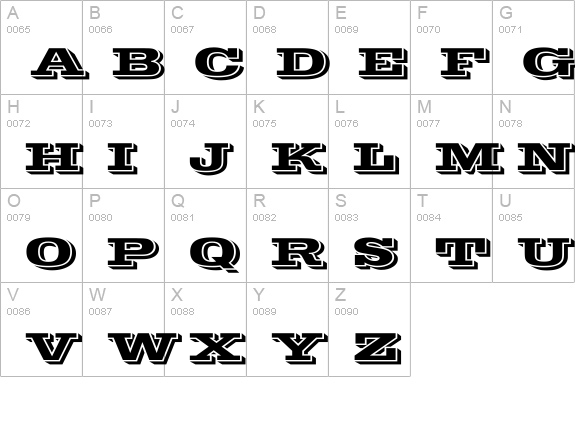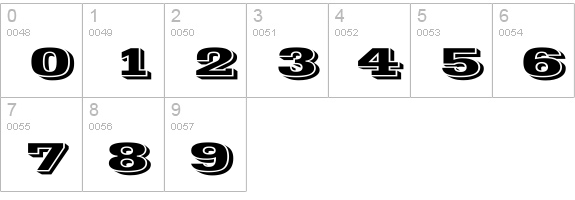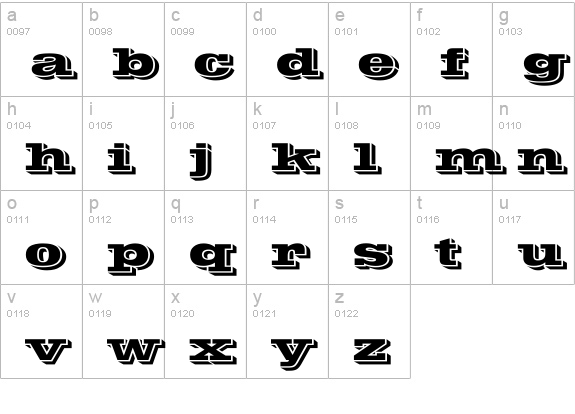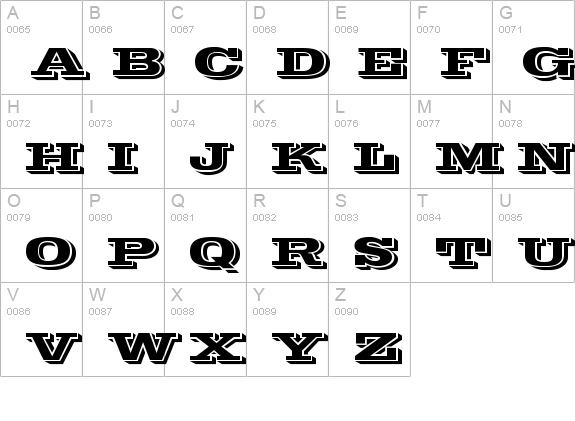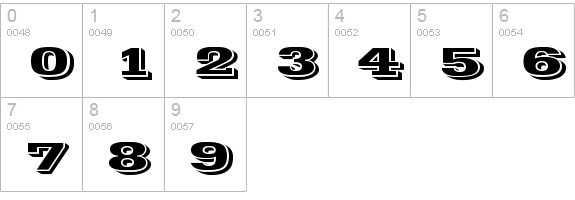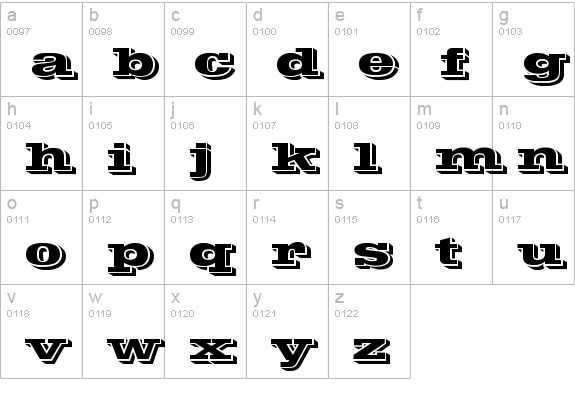
Vinera Wd Font Details
Introducing Vinera Wd, a captivating font that effortlessly combines elegance and modernity. With its sleek lines and subtle curves, Vinera Wd exudes a sense of sophistication that is perfect for a wide range of design projects. This unique font offers a touch of versatility, making it suitable for both formal and informal contexts. Whether you're designing a wedding invitation, a logo for a high-end brand, or even a stylish blog post, Vinera Wd will elevate your work to new heights. What sets Vinera Wd apart from other fonts is not only its stunning visual appeal, but also its accessibility. This remarkable font is freely available to download at FontsMarket.com, providing you with the opportunity to add a touch of glamour to your designs without breaking the bank. Vinera Wd's clean and crisp lines make it easy to read, ensuring that your message is conveyed clearly and effectively. Its carefully crafted letterforms are both eye-catching and legible, making it a perfect choice for headlines, titles, and captions. Whether you're a professional designer or a passionate enthusiast, Vinera Wd is a must-have font in your collection. Its versatility, elegance, and the fact that it is freely available for download at FontsMarket.com, make it an invaluable asset for any creative project. Elevate your designs to the next level with Vinera Wd, the font that effortlessly combines beauty and accessibility.